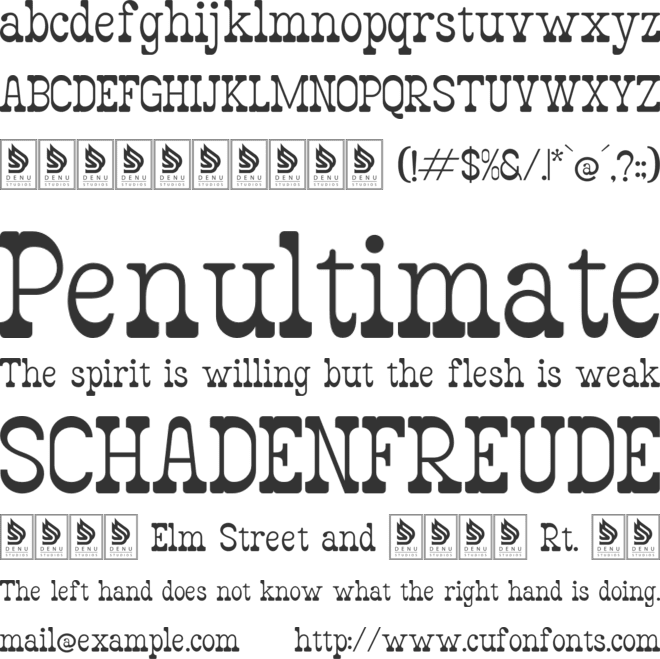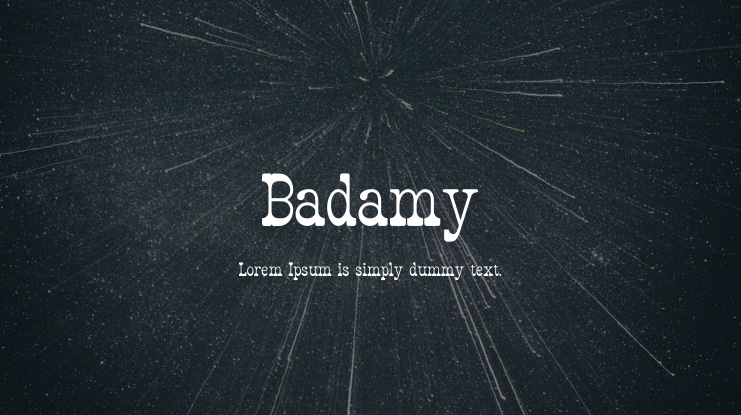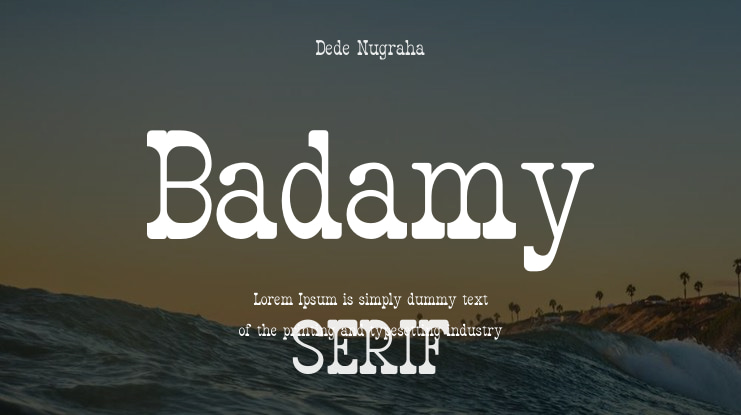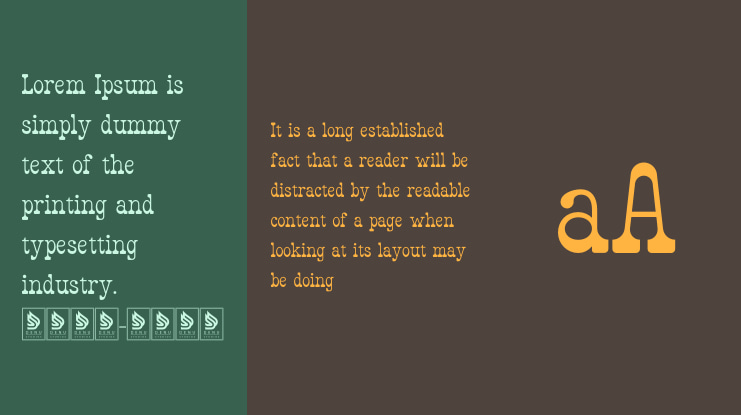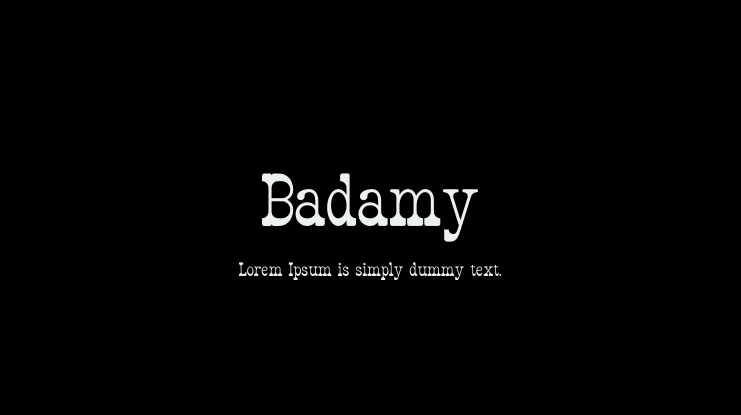
We offer Badamy Slab Serif Font which is ideal for various projects including logos, branding, homeware designs, product packaging, mugs, quotes, posters, shopping bags, t-shirts, book covers, name cards, invitations, greeting cards, labels, photography, watermarks, special events, and any other projects that require a Slab Serif script font style.